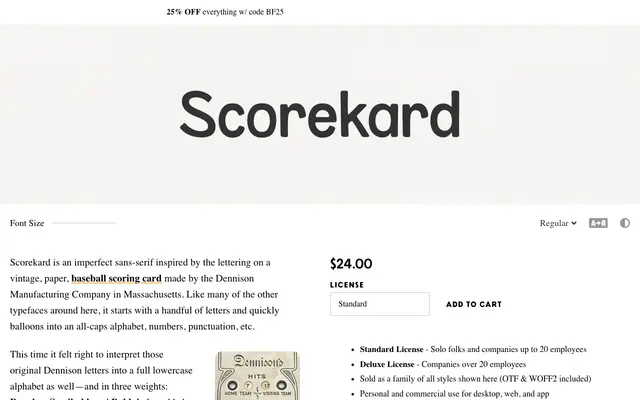
Scorekard
A three-weight display sans drawn from the hand-lettering on a vintage Dennison Manufacturing Company baseball scoring card, with deliberate imperfection and inky roundness built in.
Inspired by lettering found on a paper baseball scoring card made by the Dennison Manufacturing Company in Massachusetts, Scorekard translates those original characters into a full upper- and lowercase alphabet across three weights: Regular, Semibold and Bold. The designer describes its character as intentionally quirky, with line wandering and friendly, inky roundness kept from becoming too eccentric to be broadly usable. A swashy ornament from the original card is included as an alternate asterisk, and Latin diacritic support extends the character set for wider language use.
Classified as display given its intentionally quirky, imperfect character and origin in vintage hand-lettered scoring card lettering; the designer explicitly calls it a display sans.